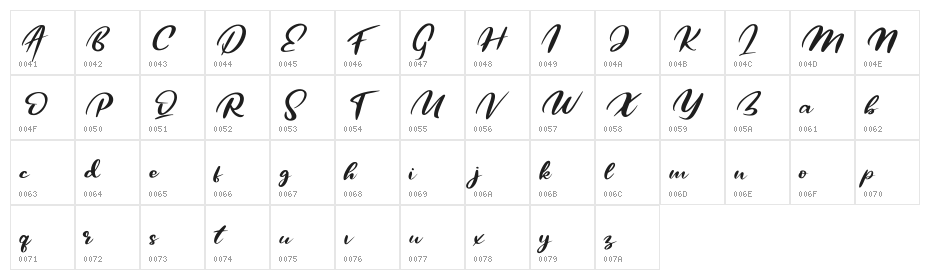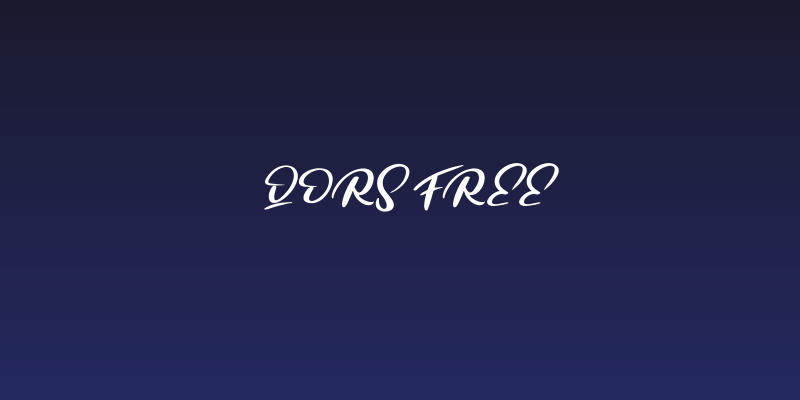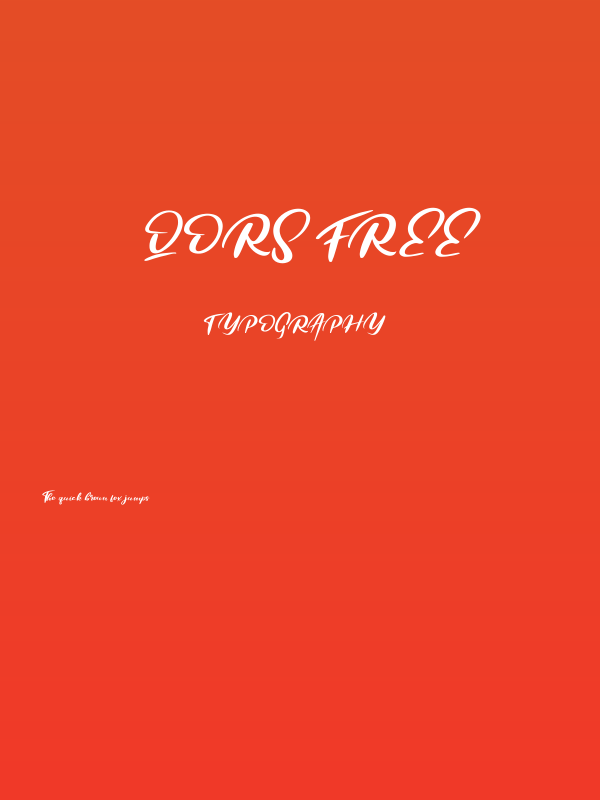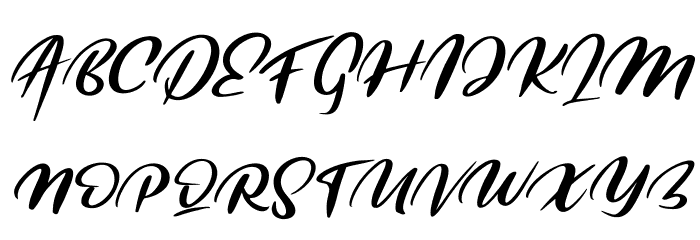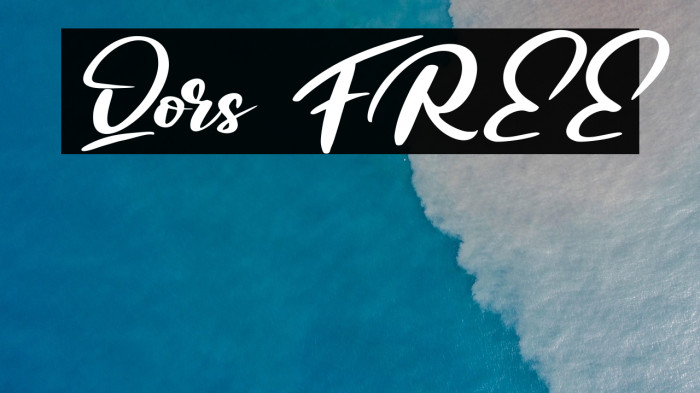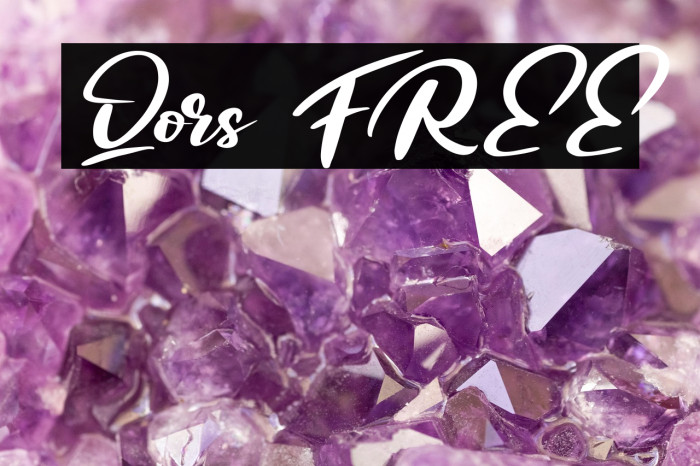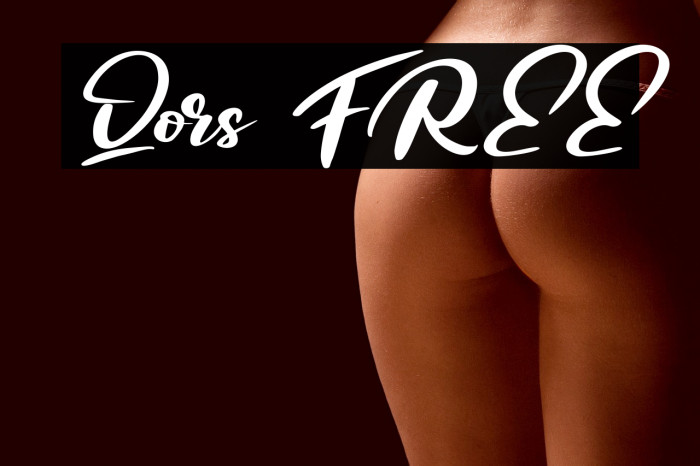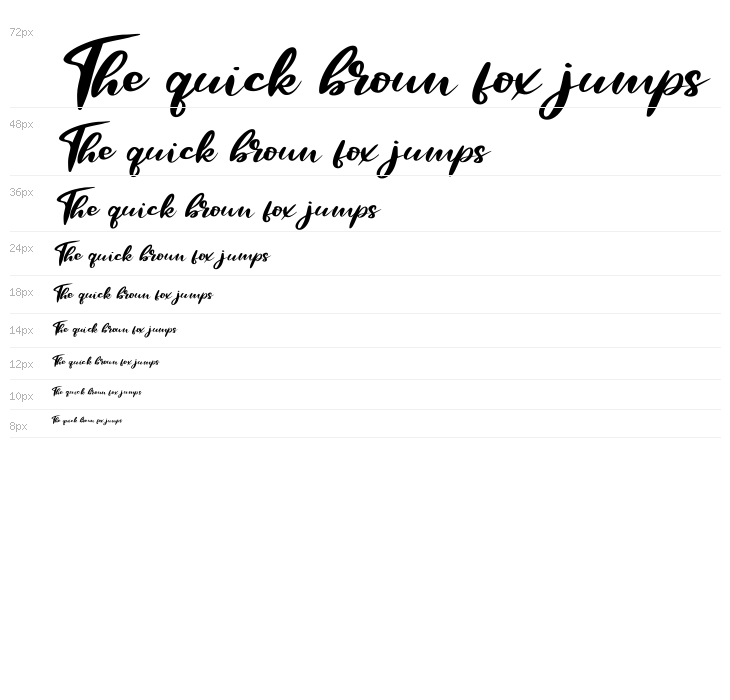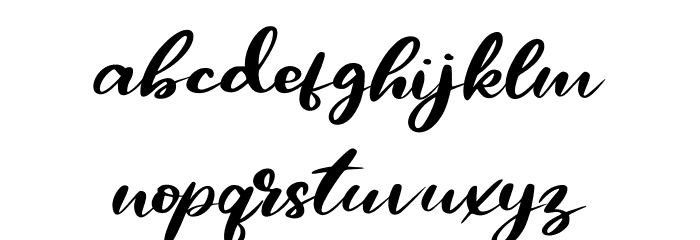
Qors FREE Font
Qors FREE Description
This font features a dynamic and flowing script style, characterized by its elegant and cursive letterforms. The uppercase letters exhibit a distinctive flair with sweeping curves and elongated strokes, while the lowercase letters maintain a consistent fluidity that enhances readability. The font's design incorporates a sense of movement and grace, making it suitable for creative and expressive projects. The bold strokes and high contrast between thick and thin lines add to its visual impact, creating a striking appearance. This font is ideal for use in branding, invitations, and other decorative applications where a touch of sophistication is desired.
| Proposed Projects | Ideal for wedding invitations, branding, logos, and decorative projects requiring a sophisticated touch. |